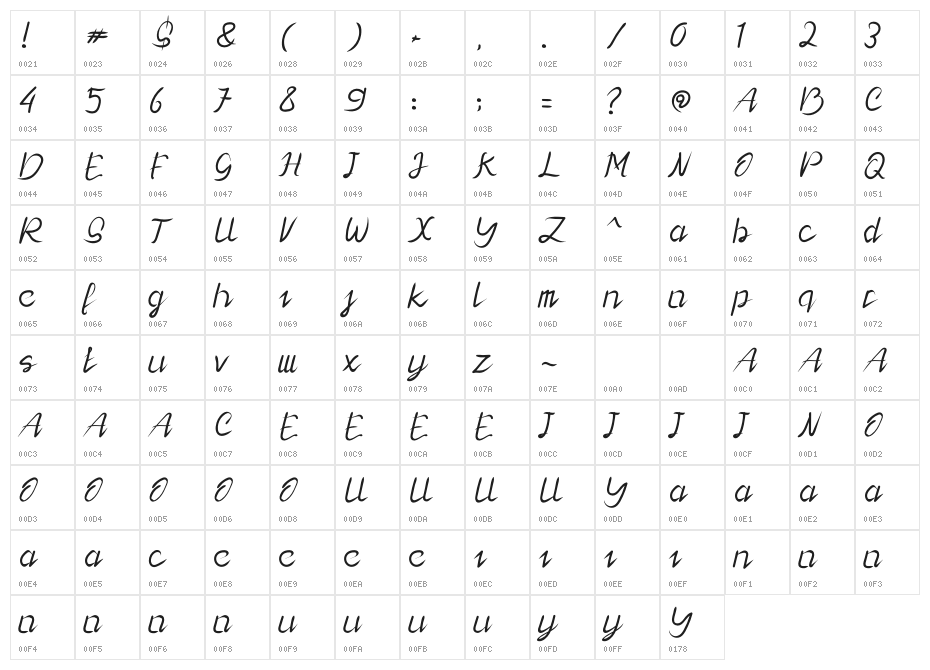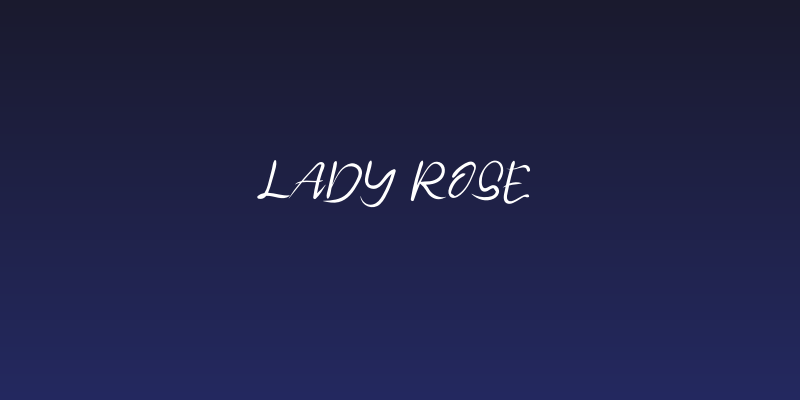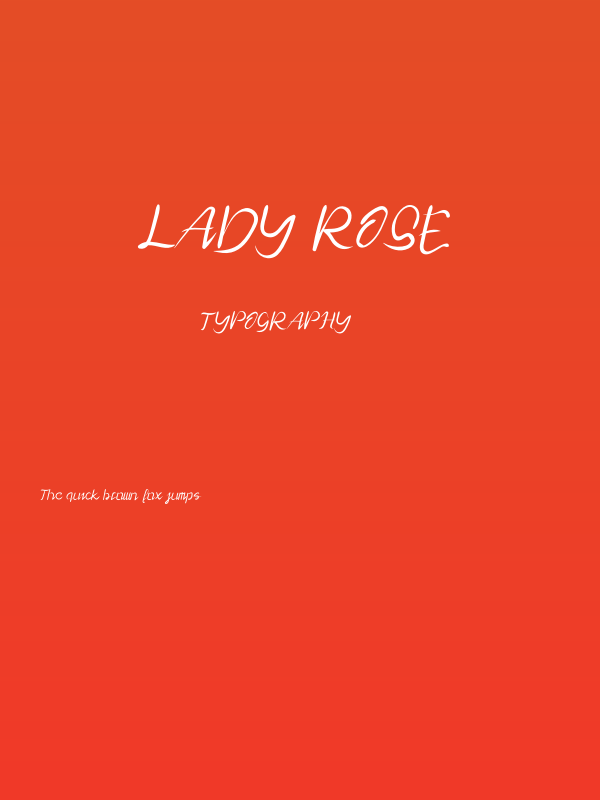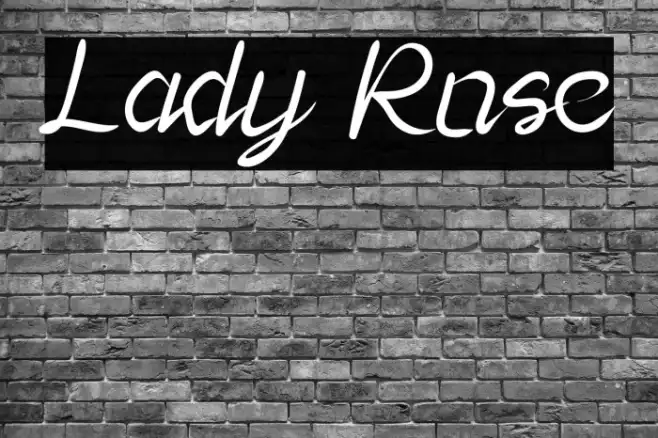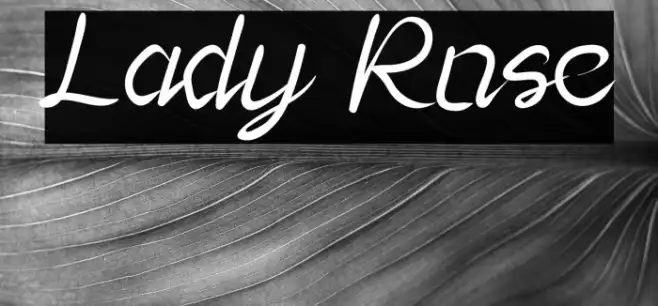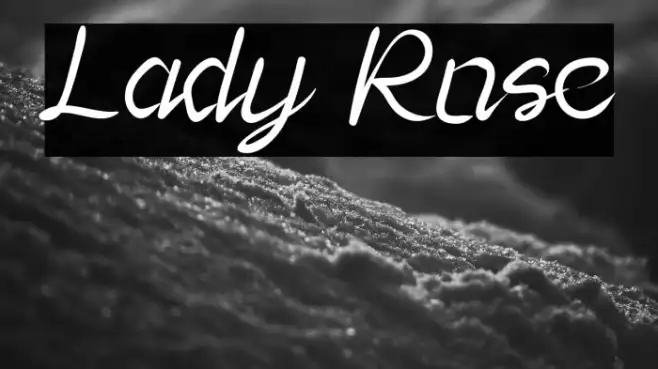
Lady Rose Font
Lady Rose Description
This elegant script font features fluid, cursive strokes that convey a sense of sophistication and grace. The uppercase letters are slightly more ornate, with sweeping lines and subtle flourishes, while the lowercase letters maintain a consistent flow, enhancing readability. The numerals are designed to complement the letters, with a similar slant and style. Special characters are thoughtfully integrated, maintaining the overall aesthetic. The font's design is ideal for projects that require a touch of elegance and personal flair.
| Use Case | Headlines, Invitations, Branding |
| Proposed Projects | Ideal for wedding invitations, greeting cards, elegant branding, and personal stationery. |